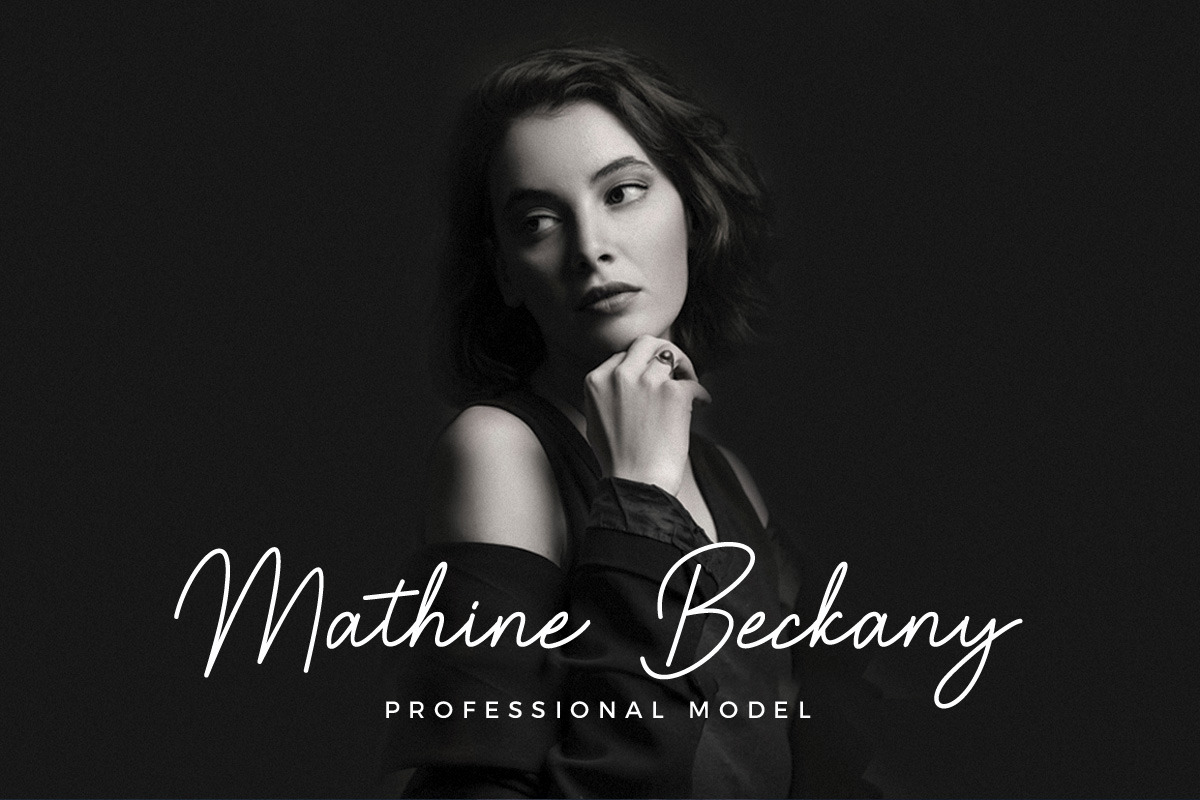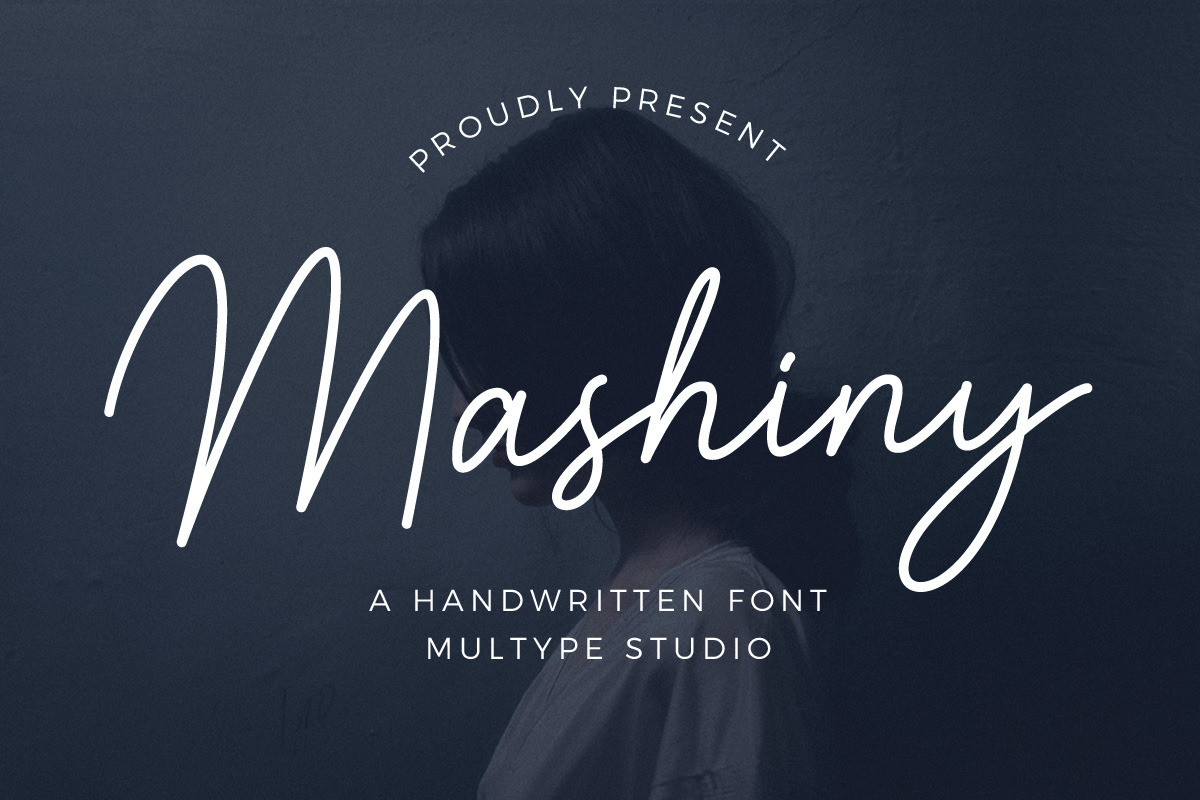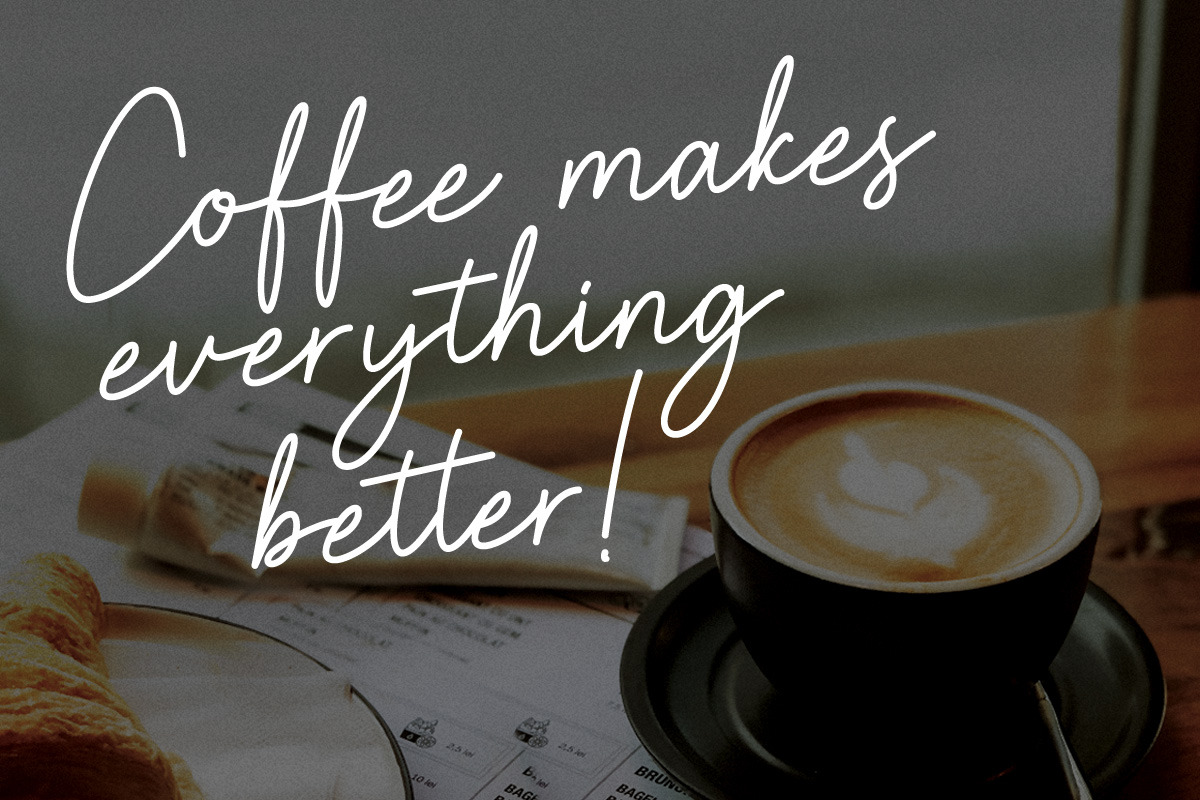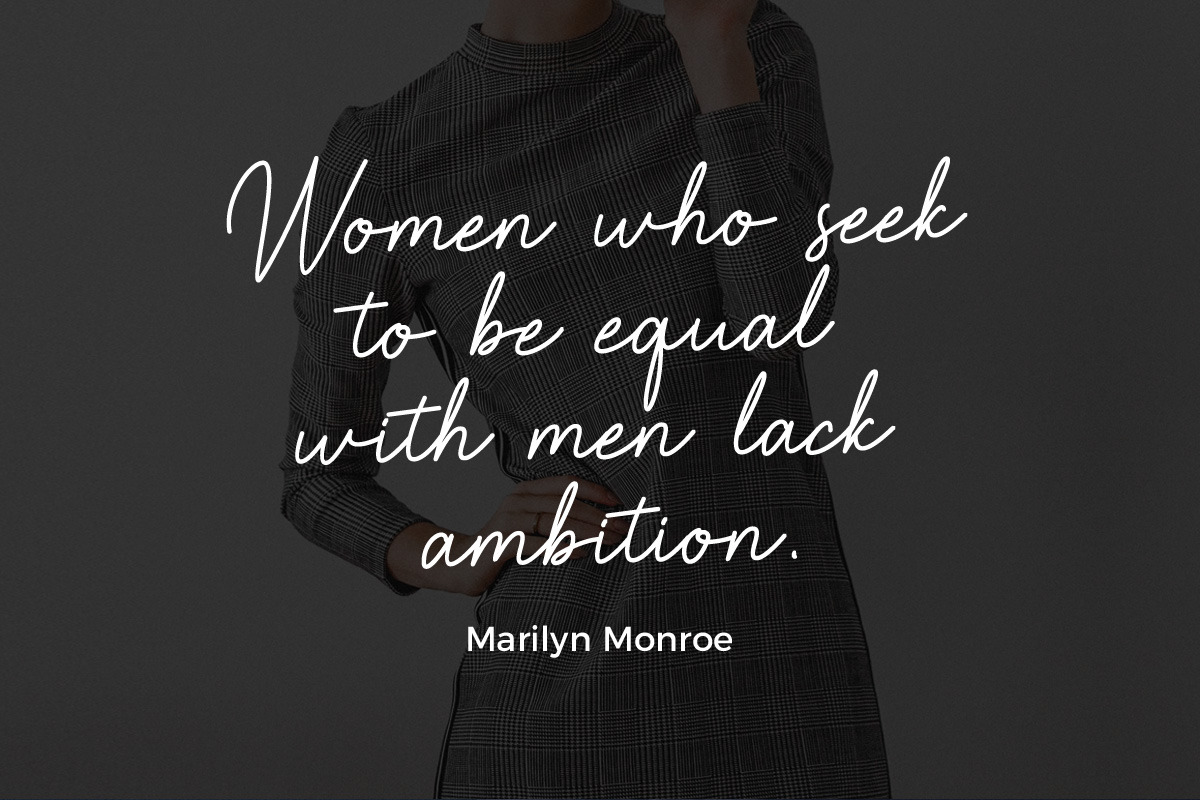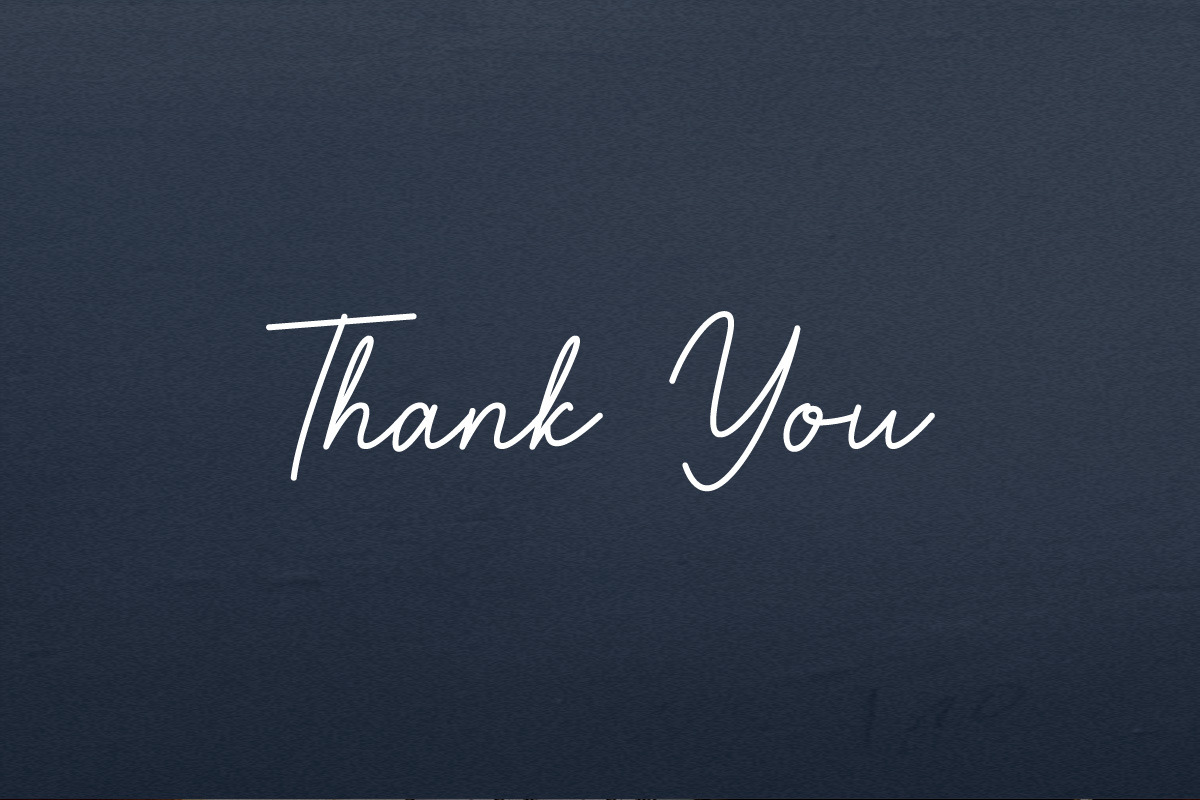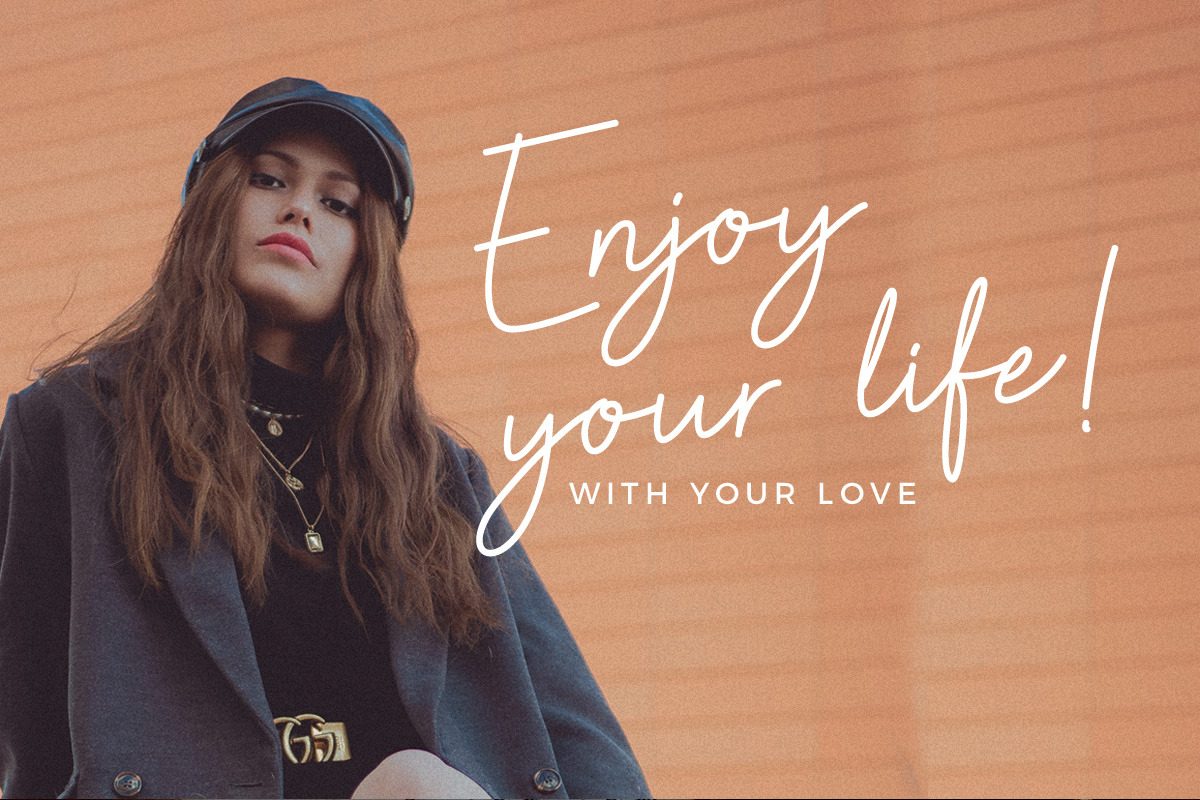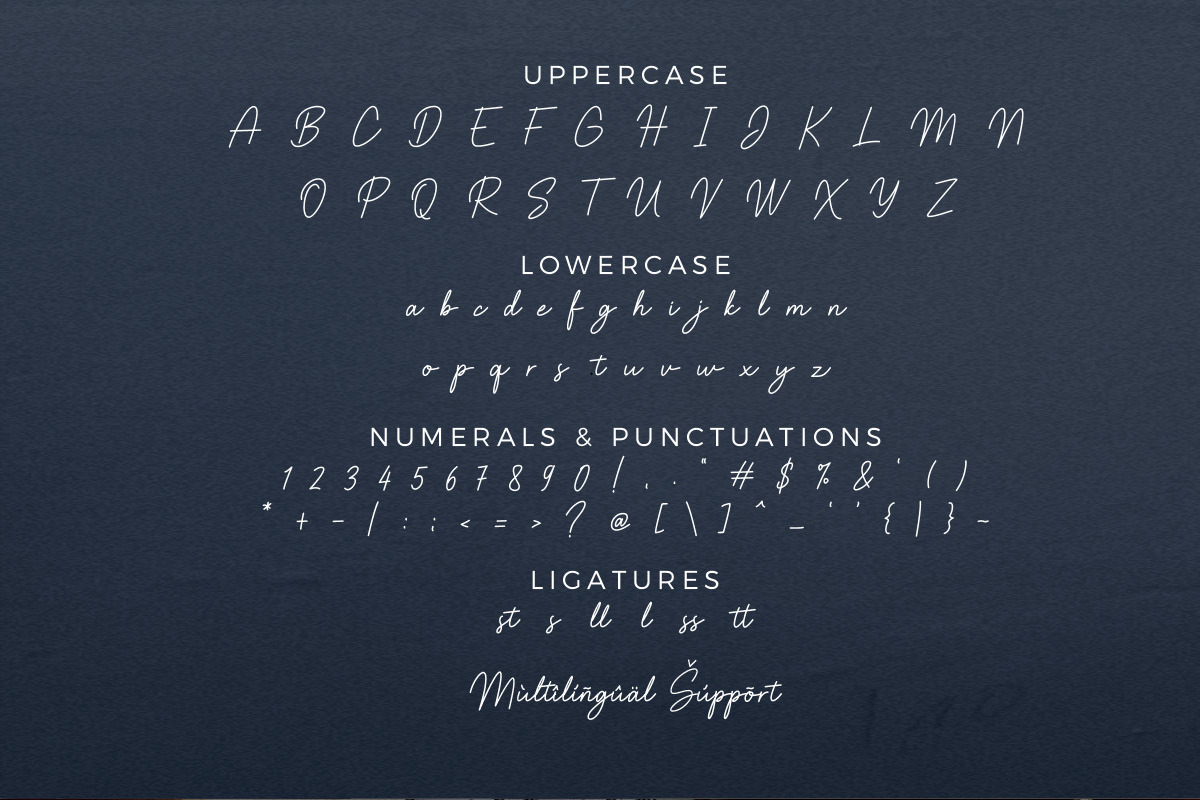
Mashiny Handwritten Business Font
Mashiny is a handwritten font with unique curves and an elegant inky flow. Mashiny is perfect for photography, watermark, social media posts, advertisements, logos & branding, invitation, product designs, label, stationery, wedding designs, product packaging, special events or anything that need handwriting taste.
- Numbers & Symbols